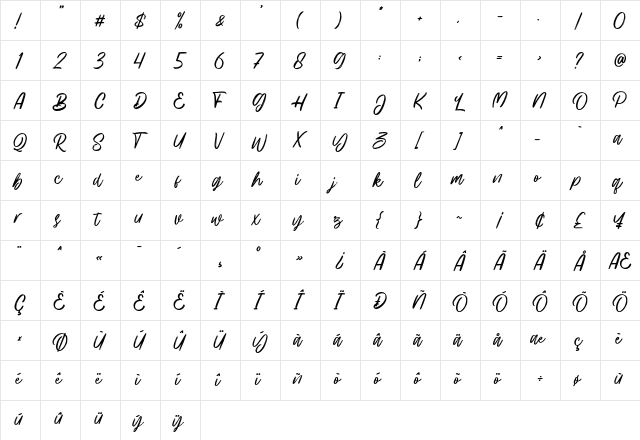
Hillbear Regular
Design Context for Hillbear Typeface
Hillbear is a composed and adaptable typeface that performs quietly and consistently across a wide range of design contexts.
Pro Tip: Use Hillbear in both headline and body roles to test its range before committing to a single application.